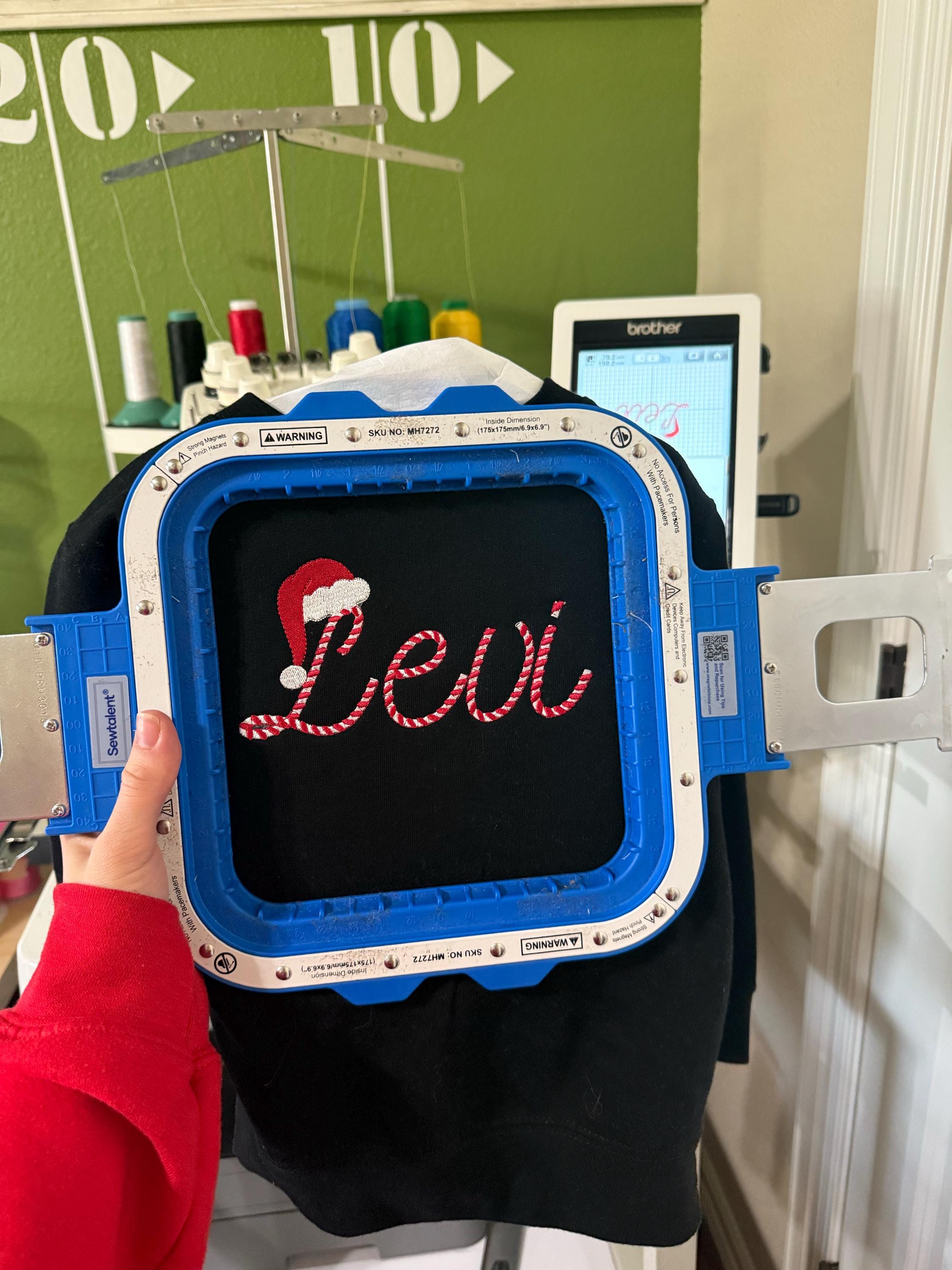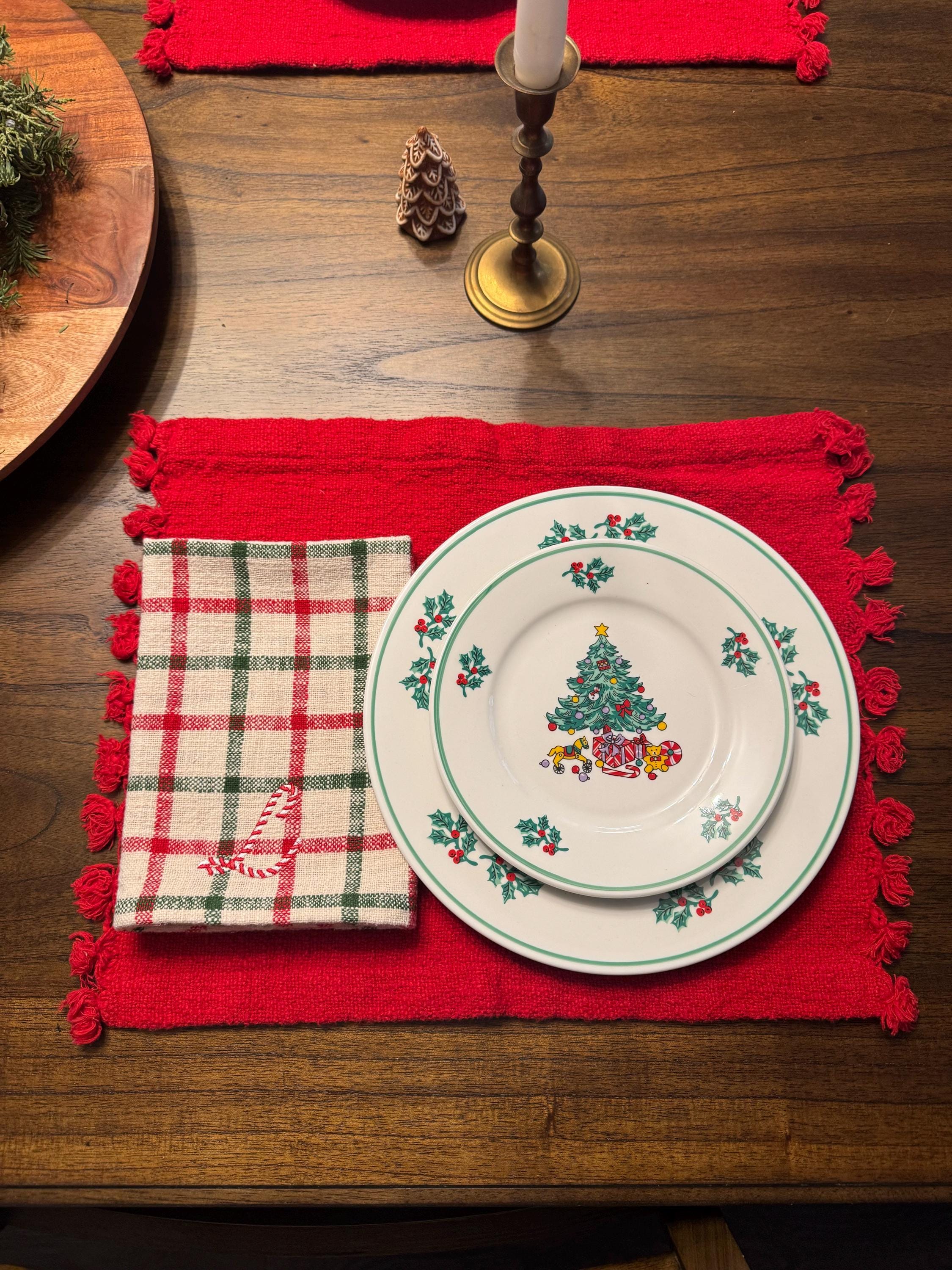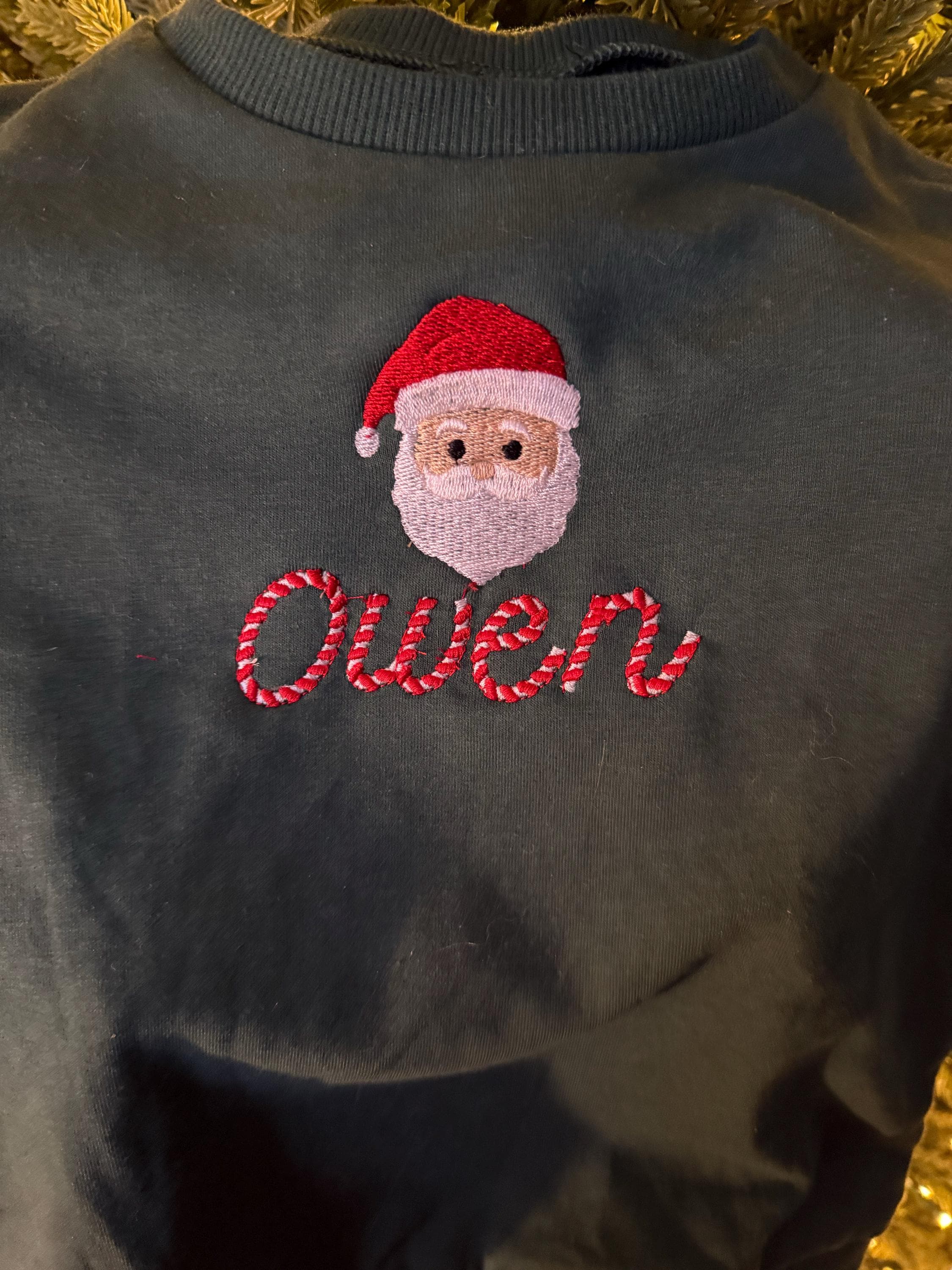
Classy Candy Cane Handwritten Font
Charming candy-striped monograms for festive keepsakes
Classy Candy Cane Handwritten Font is a festive in-the-hoop lettering set perfect for holiday monograms and seasonal accents. This candy cane font includes uppercase, lowercase, numbers and punctuation in sizes 1.6, 2.0, 2.4, 2.9 and 3.4 inches and fits a 4x4 hoop. The two-color, 5130-stitch design stitches cleanly for napkins, stockings and ornaments. Use this christmas font as a playful handwritten embroidery alphabet or a merry in-the-hoop font for kids' pajamas, tea towels, and personalized gift tags. Files come in multiple formats for quick stitching and professional results.